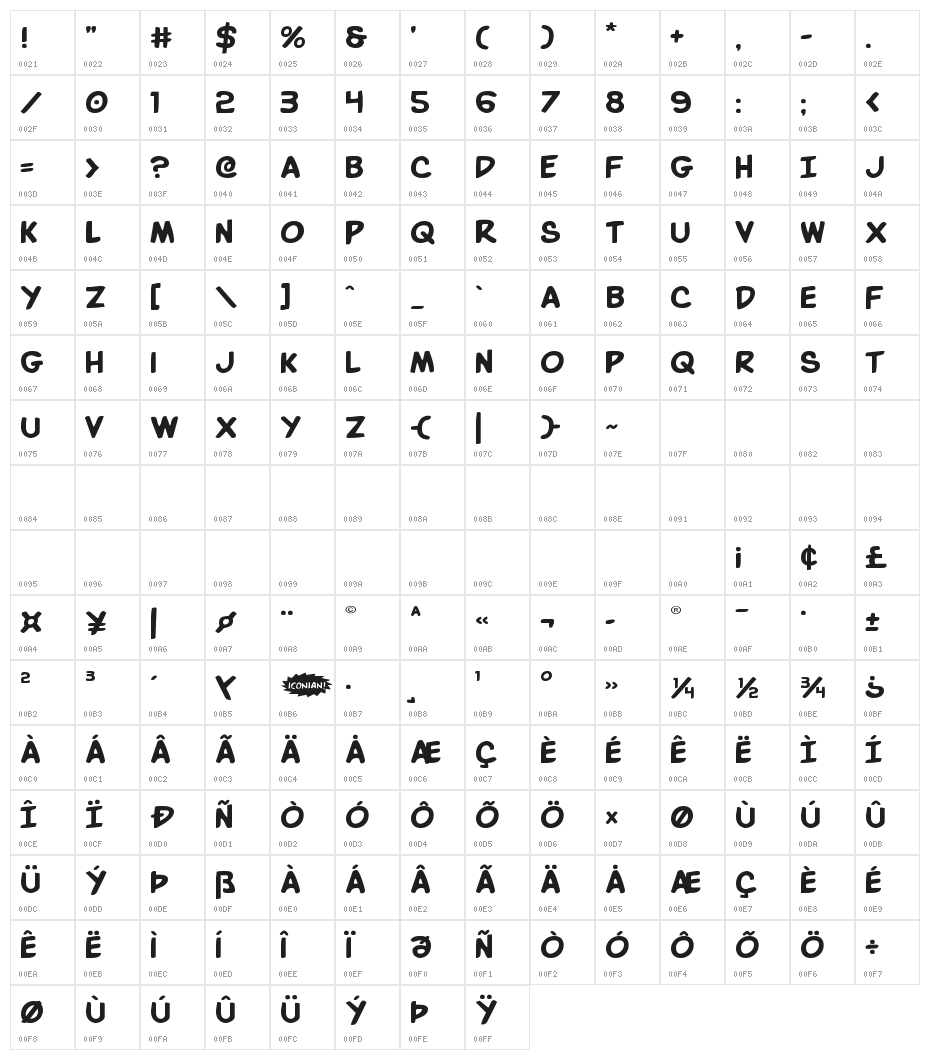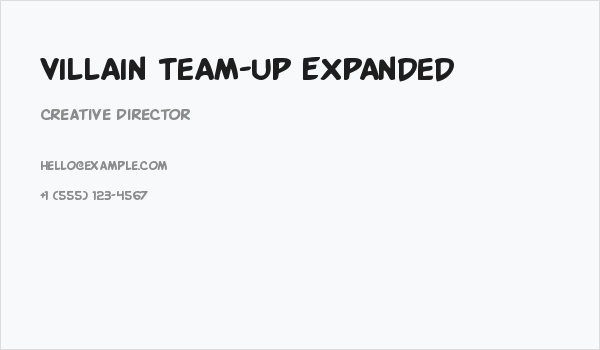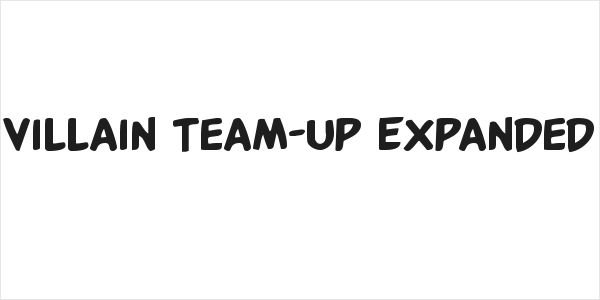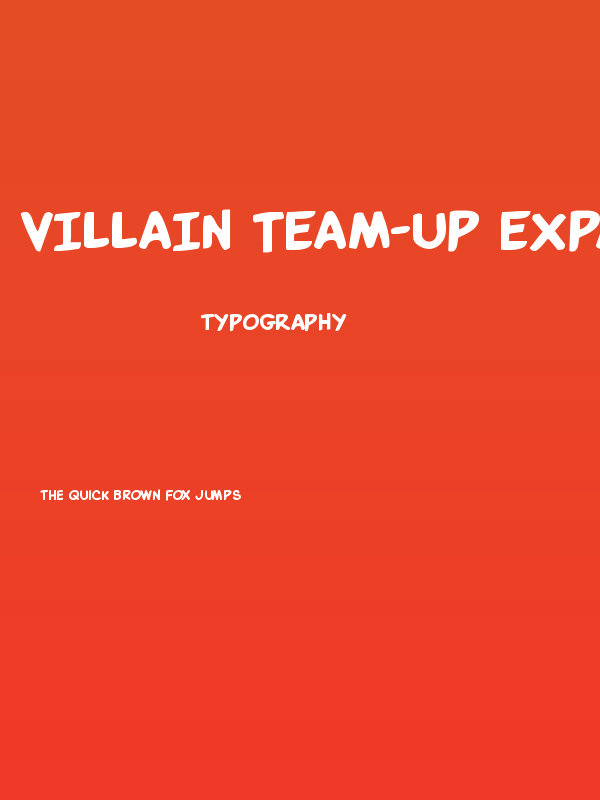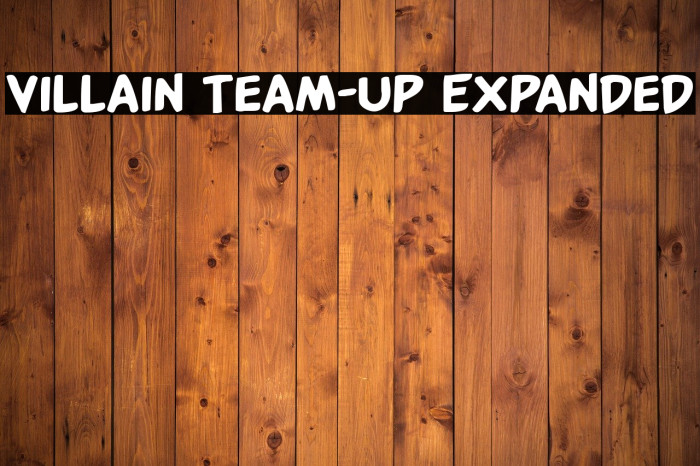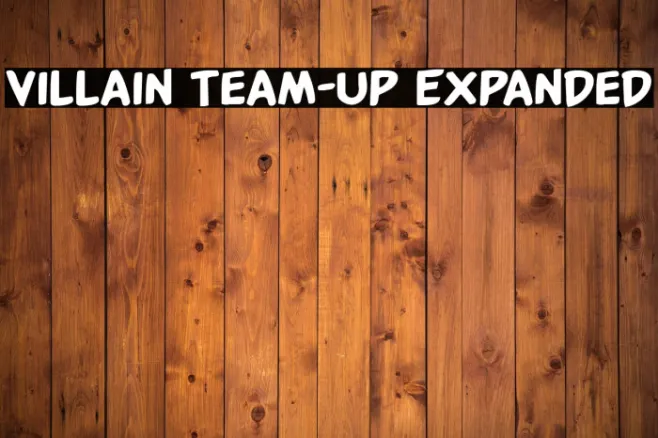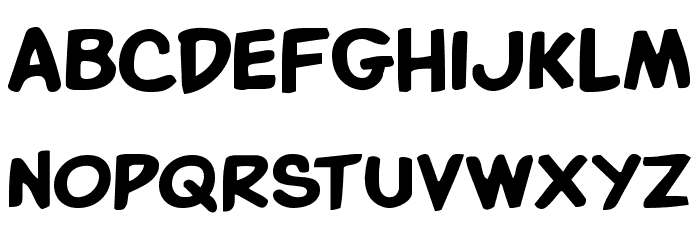
Villain Team-Up Expanded Font
Villain Team-Up Expanded Description
This font features bold, rounded characters with a playful and cartoonish style. The letters are thick and have a slightly uneven baseline, giving them a dynamic and energetic appearance. The strokes are consistent in weight, contributing to a cohesive look across all characters. The numbers and special characters maintain the same playful aesthetic, making them suitable for a variety of creative uses. The overall design is approachable and friendly, making it ideal for projects that require a fun and informal tone.
| Overall Style | Playful, Cartoonish |
| Proposed Projects | Ideal for comic books, children's books, playful branding, and posters. |